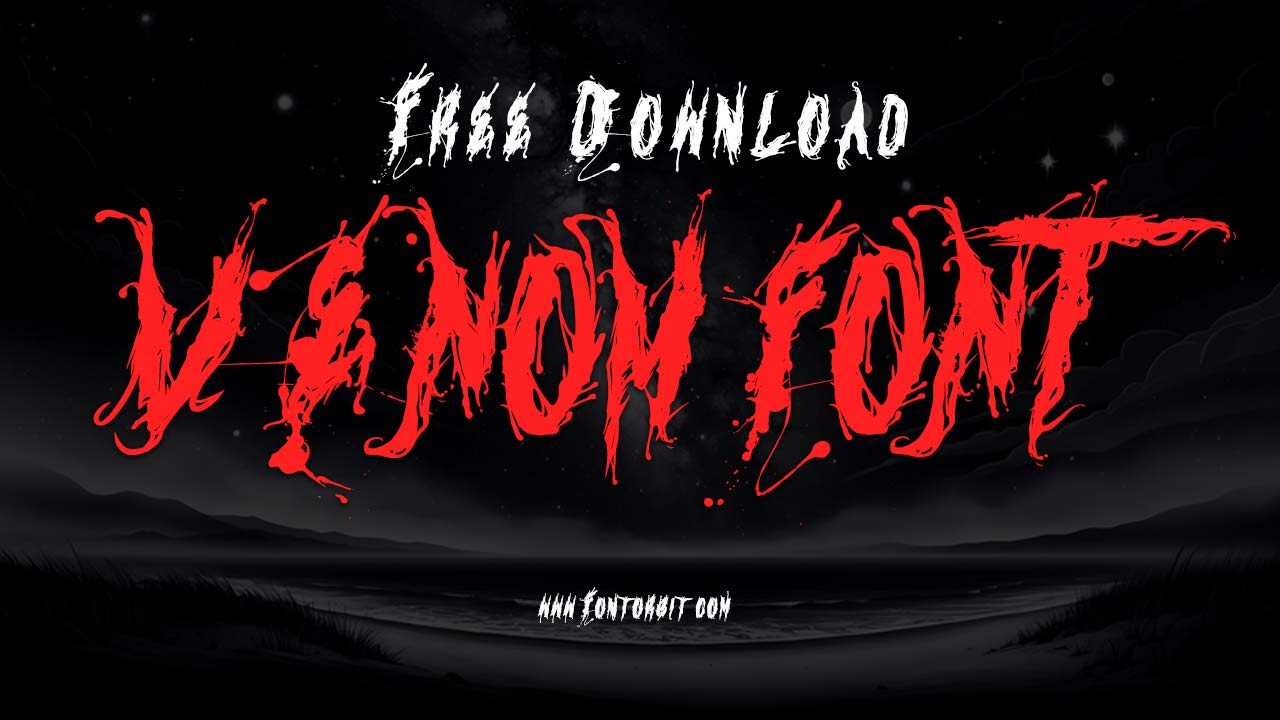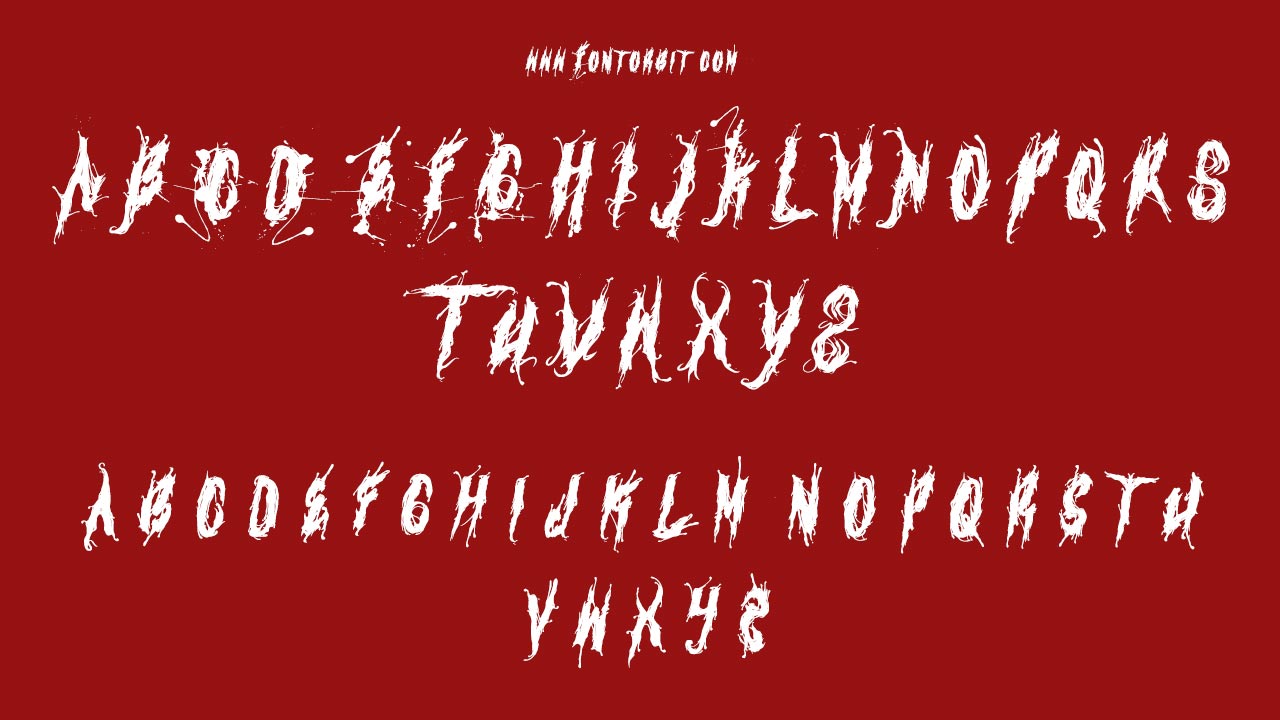
The Venom Font by Fluffy Art Studio is a bold and distinctive typeface designed to capture the essence of raw, rebellious energy. Released as a free font for personal use, Venom Font stands out with its edgy, jagged edges and distressed texture, embodying the chaotic spirit of its namesake.
Inspired by the gritty aesthetics of alternative culture and the intense world of anti-heroes, this font is perfect for projects that demand a dramatic and unconventional appearance.
Venom Font features a single style, capturing the essence of its dramatic and unconventional design. It’s a striking and edgy typeface , embodying a fancy and rebellious style. This free font is available for personal use and can be installed on PC, Mac, Linux, iOS, and Android devices.It’s ideal for adding a unique flair to your projects.
Venom Font’s distinctive style makes it perfect for projects that seek to convey a rebellious and edgy aesthetic. It’s especially effective for:
- Movie Titles
- Trailers
- Flyers
- Subheadings
- Titles in Themed Content
Venom Font Found In Use
The Venom Font is notably used in the movie trailer for “Venom: The Last Dance,” where it supports the film’s rebellious themes with its jagged and distressed appearance. It mirrors the chaotic and darker aspects of the Venom character, adding a raw, hand-drawn quality to the visual elements.
Venom Font captures the essence of rebelliousness and chaos with its raw and jagged design. It’s a great choice for projects requiring a bold, unconventional typeface. Whether you’re designing movie titles, rebellious branding, or dynamic graphics, Venom Font adds a unique flair with its hand-drawn, almost punk-inspired look. Its single style conveys a powerful visual impac. Combine it with modern fonts for a striking contrast.
1.What Are The Limitations Of The Venom Font In Digital Design?
Limitations of the Venom Font in digital design is its jagged, distressed style can impact readability and may not suit clean, professional contexts.
2.What Makes Venom Font Unique Compared To Other Fonts?
Venom Font’s uniqueness lies in its jagged, distressed look, which reflects the chaotic and raw aesthetic of its namesake, making it stand out in designs that require a bold statement.
3.What Are The Popular Uses Of Venom Font?
Venom Font is popular for movie titles, rebellious-themed graphics, and alternative branding, where its dramatic style can enhance the visual impact and convey a strong message.
4.What Are The Design Principles Behind Venom Font?
The design principles behind Venom Font focus on creating a raw, hand-drawn look with jagged edges and distressed textures to evoke a sense of chaos and rebellion.
5.What Color Palette Is Typically Used With Venom Font?
Venom Font is often paired with dark, intense colors like blacks, reds, and greys to emphasize its edgy and dramatic qualities.